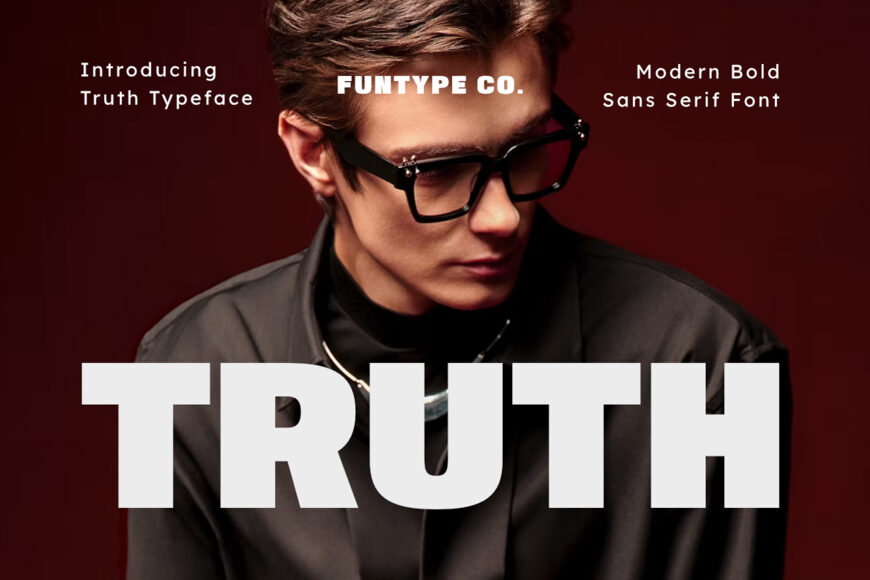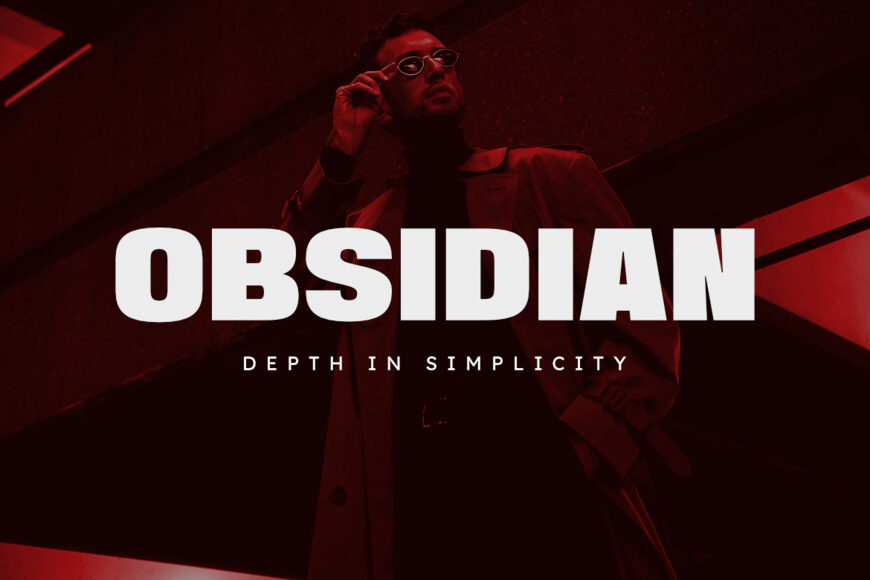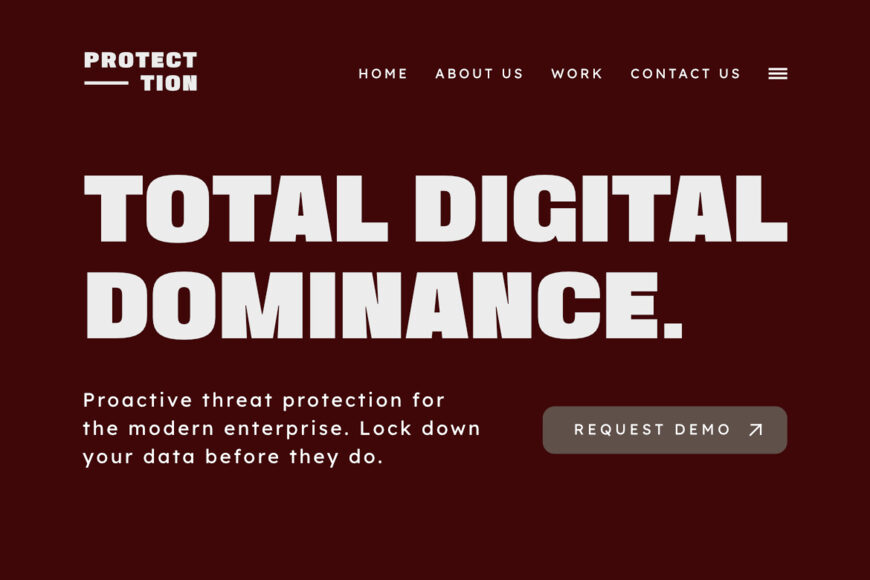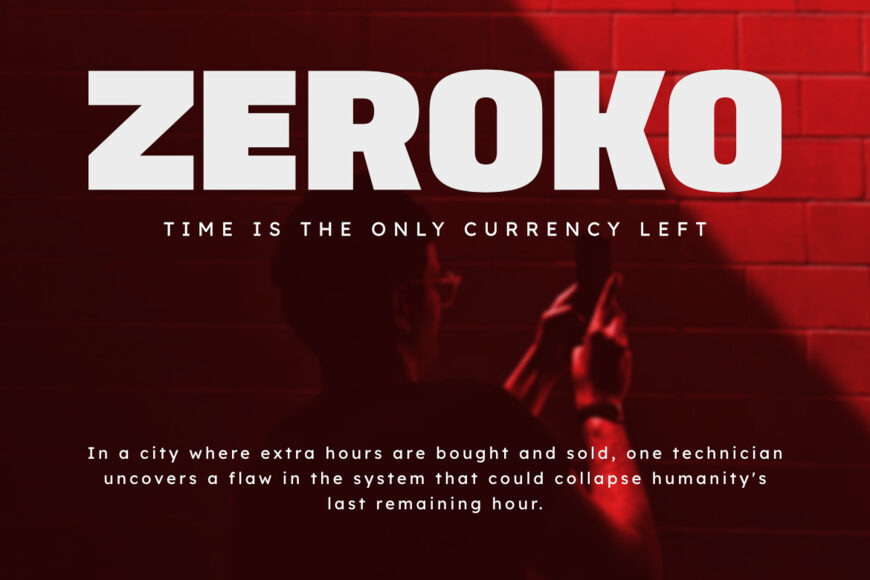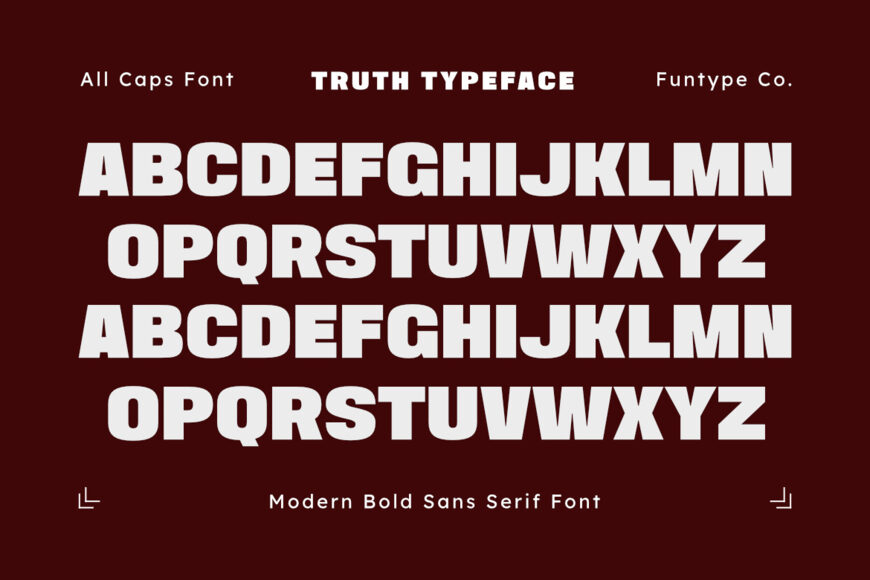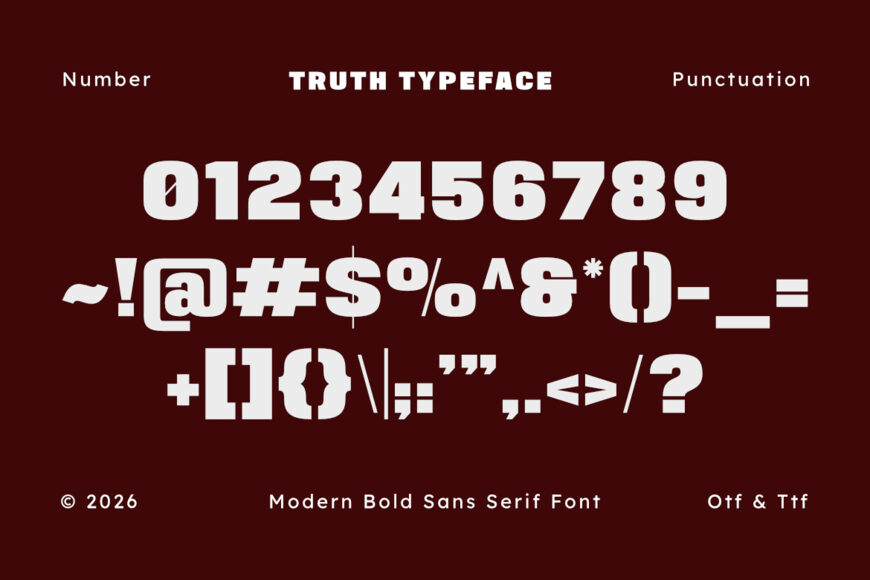
Truth Font
Truth is a powerful, heavy, and modern bold sans serif display font, engineered to deliver an authoritative presence, wide geometric stability, and a high-end display aesthetic to contemporary design layouts.
Featuring solid block letterforms, heavy horizontal presence, and clean geometric cuts, Truth introduces a high-concept magazine editorial identity, luxury corporate branding, architectural showcase presentation, and prominent digital media design built to claim absolute visual focus.